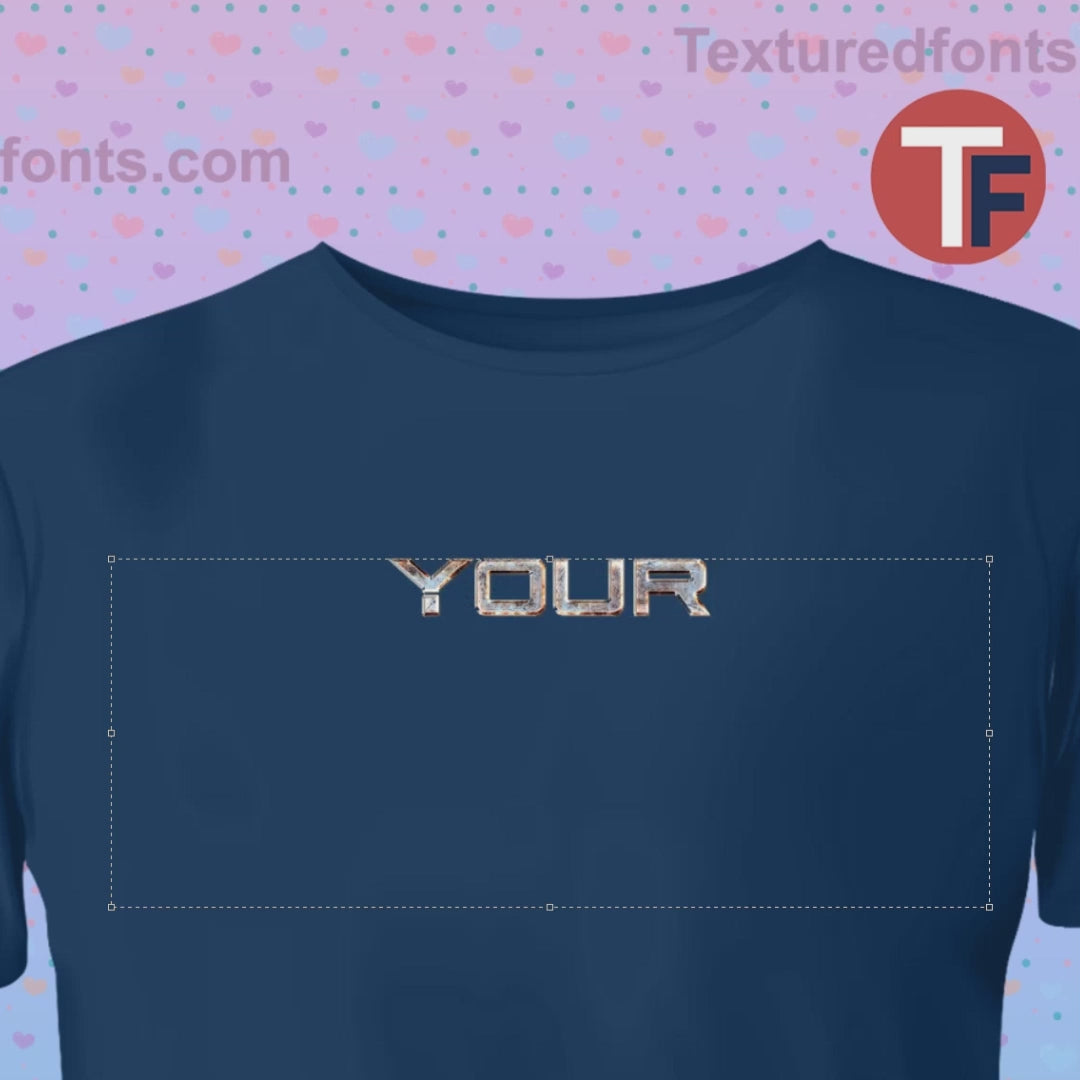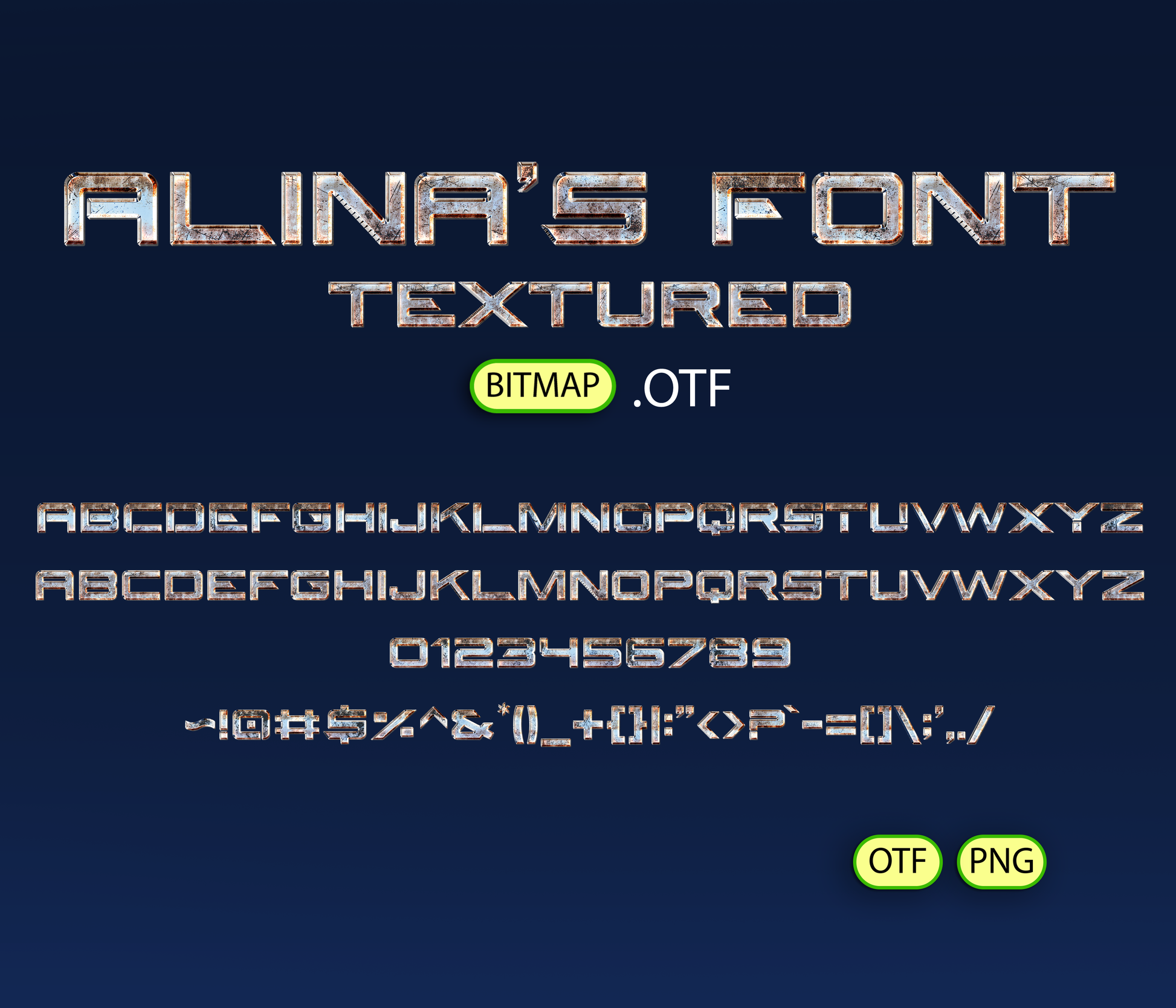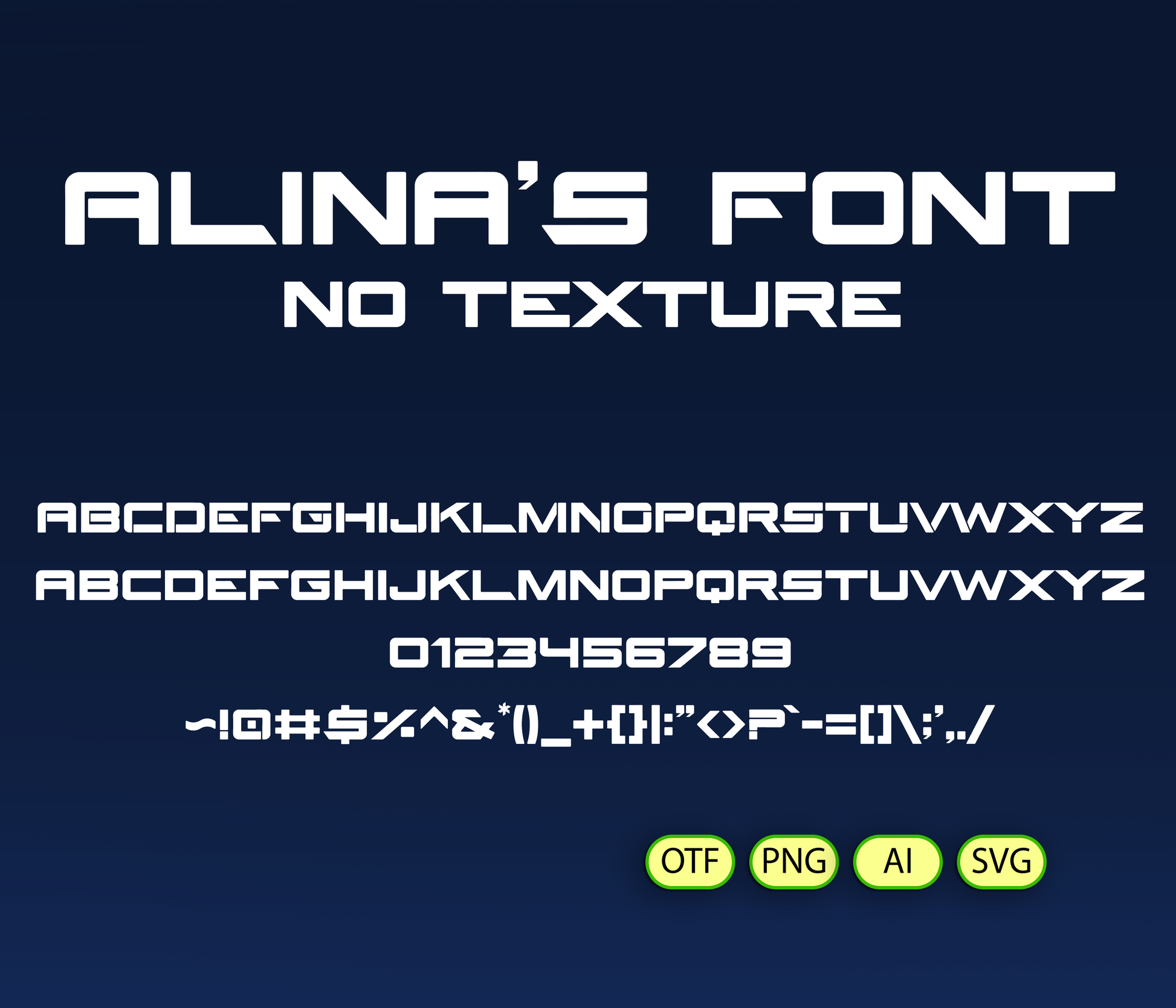
Robot Boxing Font Textured
Unleash Industrial Power with the Robot Boxing Font
Step into the high-octane world of robot boxing with our Robot Boxing-inspired font, designed to capture the rugged, futuristic essence of the action-packed film. Perfect for fans, event organizers, and designers looking to infuse their projects with the strength and technological flair of robot combat, this font brings the intense, metallic atmosphere of the movie to your designs. Whether you're creating event invitations, designing themed merchandise, or crafting digital content, our Robot Boxing font ensures your projects pack a punch with bold, industrial style.
Our Robot Boxing-inspired font features sharp, angular lines and metallic, robust characters that reflect the industrial and high-tech themes of the film. This versatile font is ideal for a variety of applications:
To ensure maximum usability and flexibility, our Robot Boxing-inspired font includes both textured and non-textured variants. The non-textured version is particularly beneficial, ensuring compatibility with all types of software, including Canva. This feature allows users of all skill levels to seamlessly incorporate the font into their designs, enhancing accessibility and ease of use across various digital and print platforms.
Many people seek out a Robot Boxing Font generator online to mimic the look of the Robot Boxing Font. Steer clear! No font generator can match the quality of this Robot Boxing Font, which comes in two versatile versions: a textured colored Robot Boxing font and a simple Robot Boxing font. This is particularly beneficial if you plan to use it with a cutting machine.
Our Robot Boxing font not only pays homage to the thrilling film but also empowers you to infuse your designs with the industrial strength and futuristic flair of robot combat. Whether you’re crafting promotional materials, designing unique merchandise, or adding a high-tech touch to personal projects, this font allows you to communicate with the bold and dynamic spirit of the movie. Ready to bring the power and intensity of robot boxing to your creative projects? This font is your key to making a strong, industrial impact in every design.